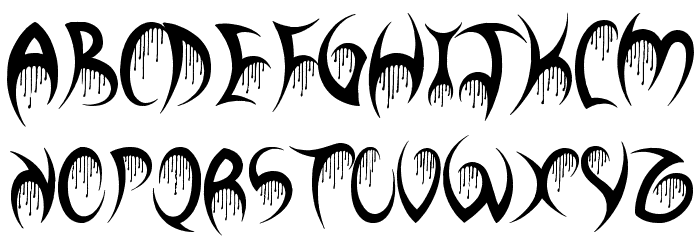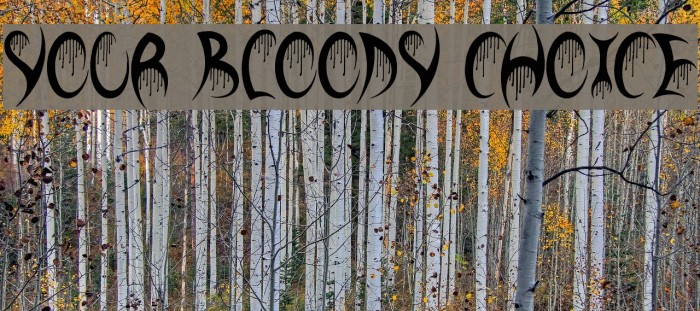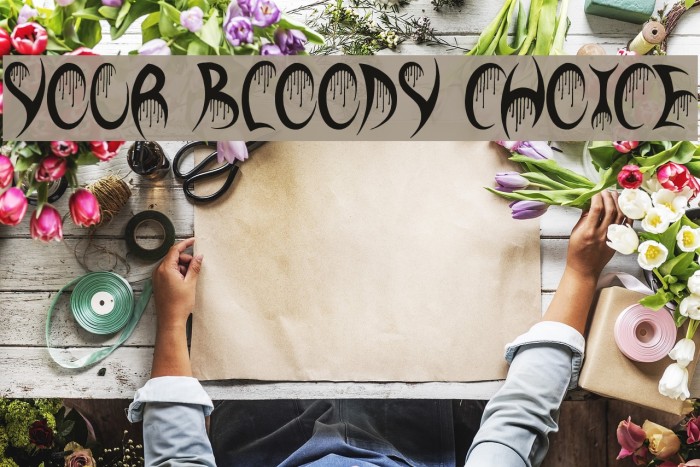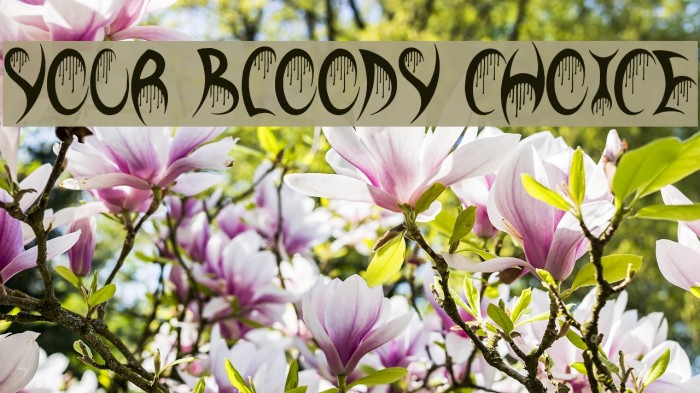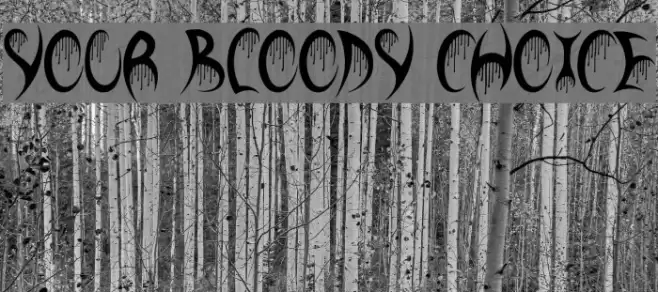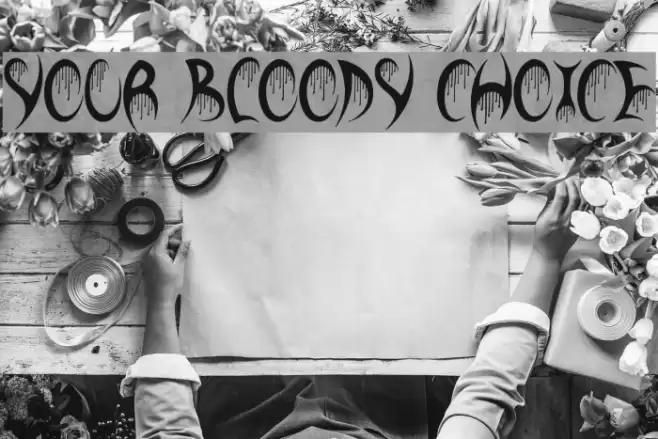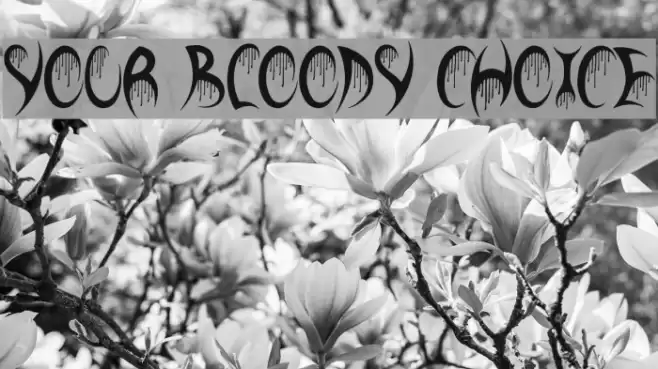
Your Bloody Choice Font
This font features a striking and dramatic design, characterized by sharp, pointed edges and dripping elements that evoke a sense of horror and suspense. The uppercase and lowercase letters maintain a consistent style, with each character appearing as if it is melting or bleeding, enhancing its eerie aesthetic. The numerals and special characters follow the same theme, making it a cohesive choice for projects that require a bold and unsettling visual impact. The font's unique style makes it ideal for Halloween-themed designs, horror movie posters, or any project that aims to convey a chilling atmosphere.
A dramatic, horror-themed font with sharp edges and dripping elements.
- Proposed Projects: Ideal for Halloween designs, horror movie posters, haunted house flyers, and spooky event invitations.